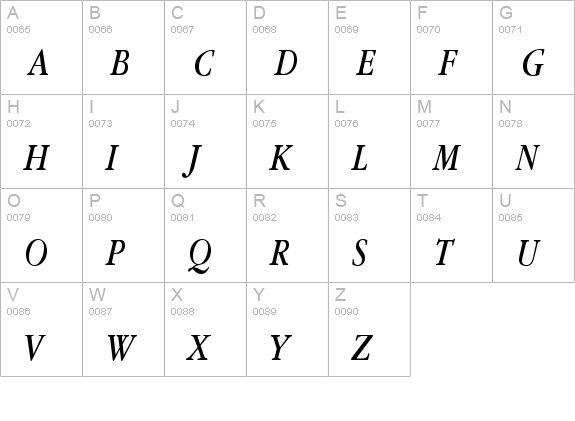
Apple Garamond Book Italic Font Details
Apple Garamond Book Italic is a comfortable, highly readable, italic variant in the Apple typeface family \xE2\x80\x94 well suited to long-form body text, articles, and editorial content.
Apple Garamond Book Italic font is a stylish and elegant typeface that exudes sophistication and class. With its slanted and graceful italic design, this font is perfect for adding a touch of flair to your projects. The gentle curves and delicate strokes give this font a timeless appeal that is both refined and versatile. Best of all, Apple Garamond Book Italic font is available for free download at FontsMarket.com. Whether you're working on a creative design project, crafting a professional presentation, or simply looking to enhance your written content, this font is the perfect choice. Don't miss out on the opportunity to elevate your work with the beauty and charm of Apple Garamond Book Italic font - download it today and let your creativity shine.